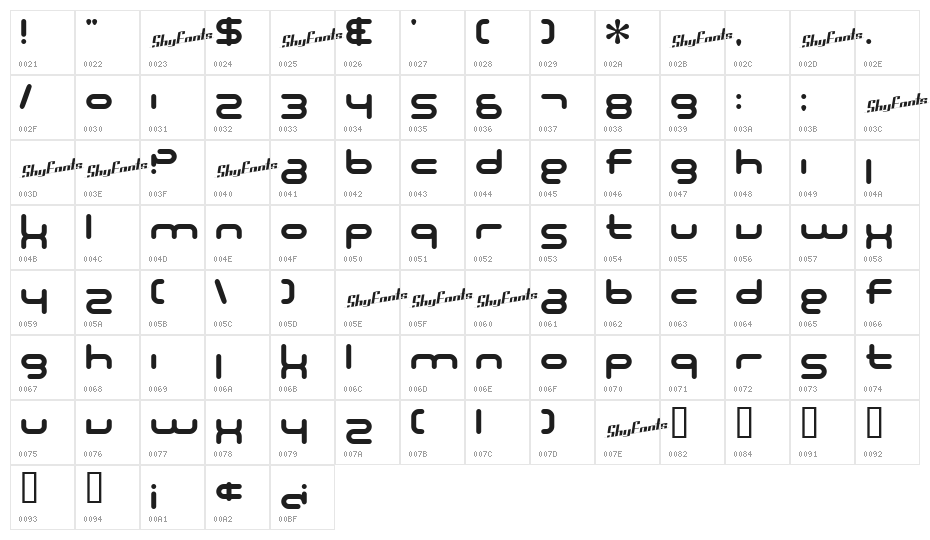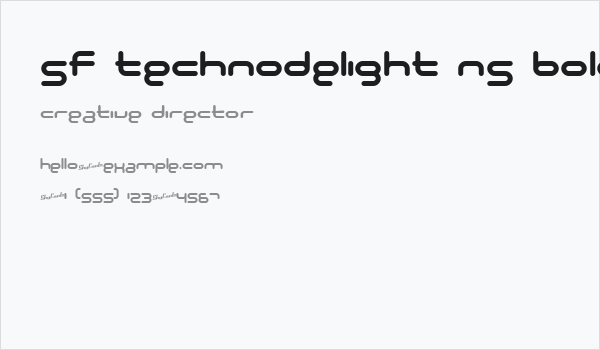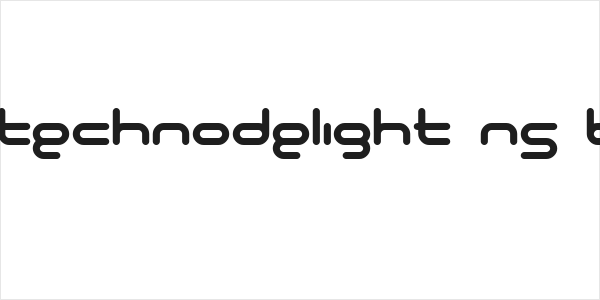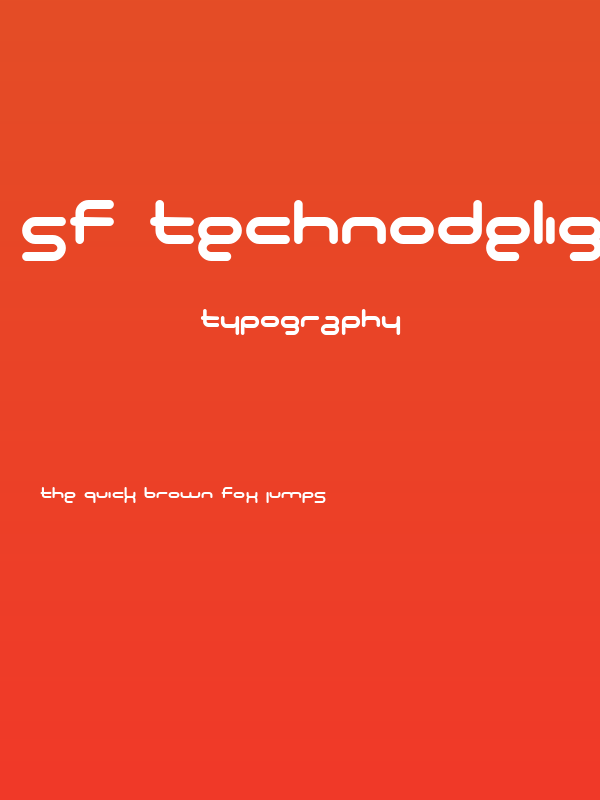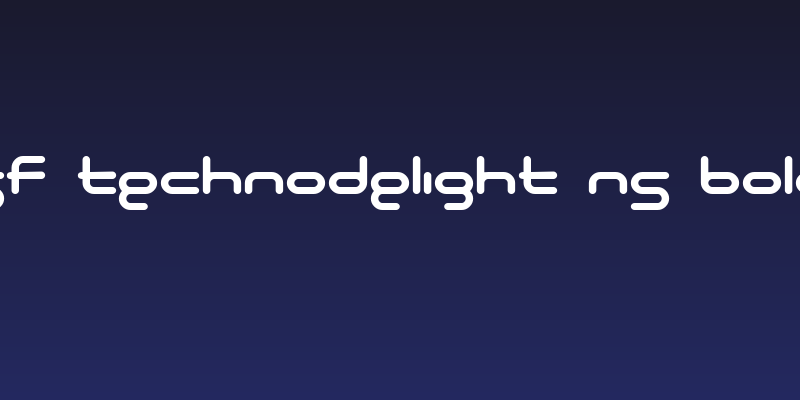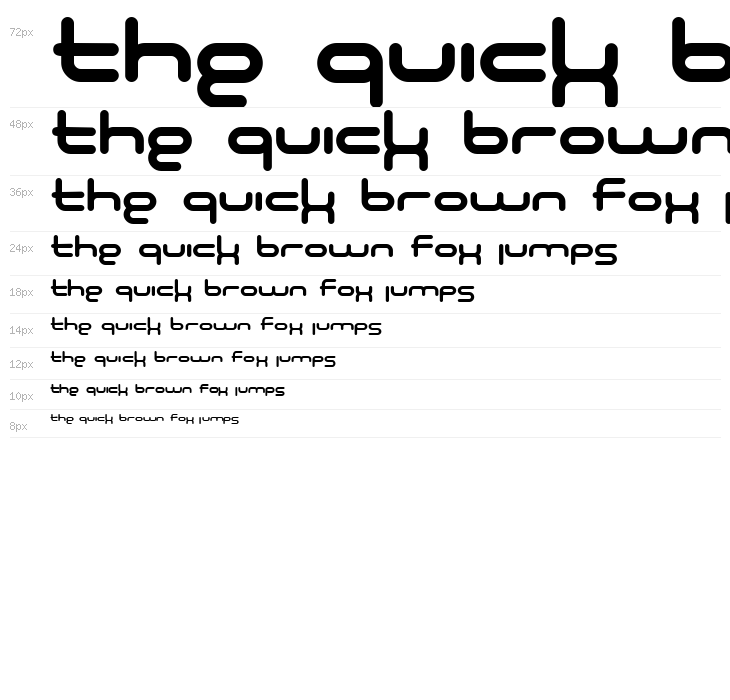
SF Technodelight NS Bold Font
SF Technodelight NS Bold Description
This font features a futuristic and geometric design, characterized by rounded edges and a consistent stroke width. The letters are bold and have a uniform appearance, creating a sense of modernity and technological advancement. The characters are well-spaced, ensuring readability while maintaining a compact and cohesive look. The numerals and special characters follow the same design principles, making them visually compatible with the alphabetic characters. This font is ideal for projects that require a sleek and contemporary aesthetic.
| Use Case | Headlines, Logos, Digital interfaces |
| Proposed Projects | Ideal for tech branding, sci-fi themed designs, digital interfaces, and modern advertising. |